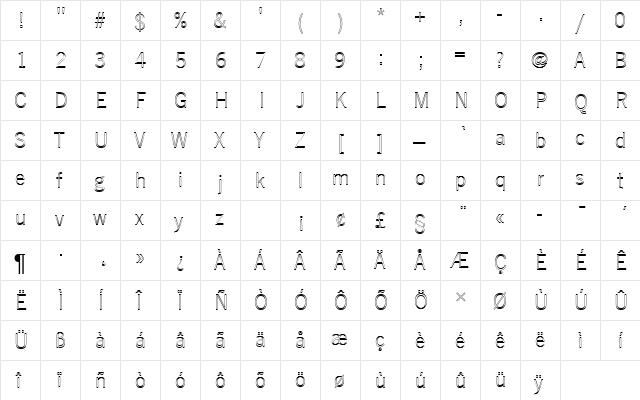
NewsGotTLigOu1 Regular
Design Context for NewsGotTLigOu1 Typeface
NewsGotTLigOu1 is a composed and adaptable typeface that performs quietly and consistently across a wide range of design contexts.